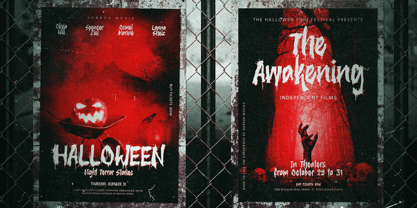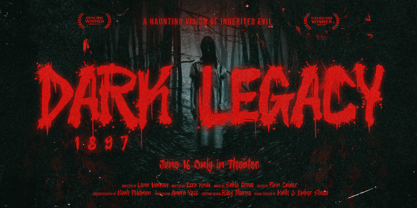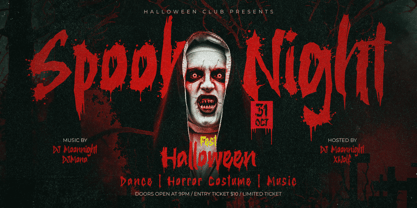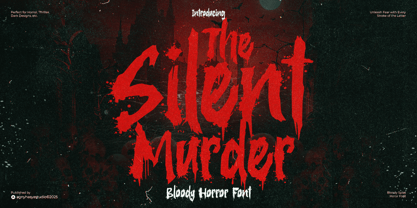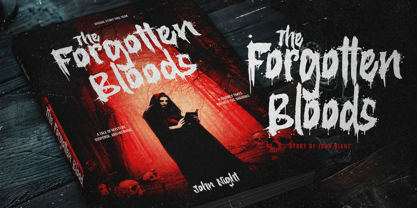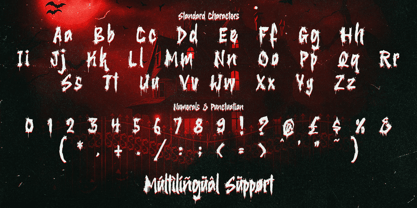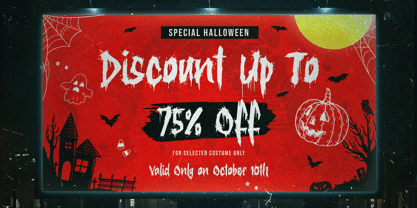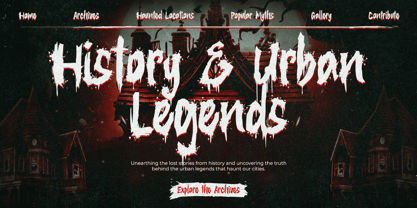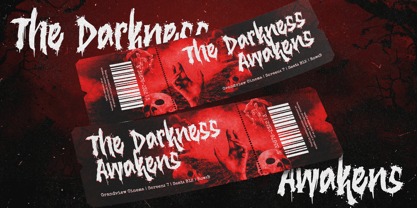
The Silent Murder
by Agny Hasya Studio
The The Silent Murder Font Family was designed by Firman Maulana and published by Agny Hasya Studio. The Silent Murder contains 1 styles.
The Silent Murder is a horror font splattered with bloody strokes and chilling detail. Each letter drips like fresh crimson, echoing the silent terror of a midnight crime. Perfect for horror posters, thriller titles, slasher branding, and Halloween visuals craving a sinister edge. This font oozes dread, transforming ordinary text into a massacre of fear. Bleed ink. Spread fear. Create silence. Warm regards, agnyhasyastudio
Designers: Firman Maulana
Publisher: Agny Hasya Studio
Foundry: Agny Hasya Studio
Design Owner: Agny Hasya Studio